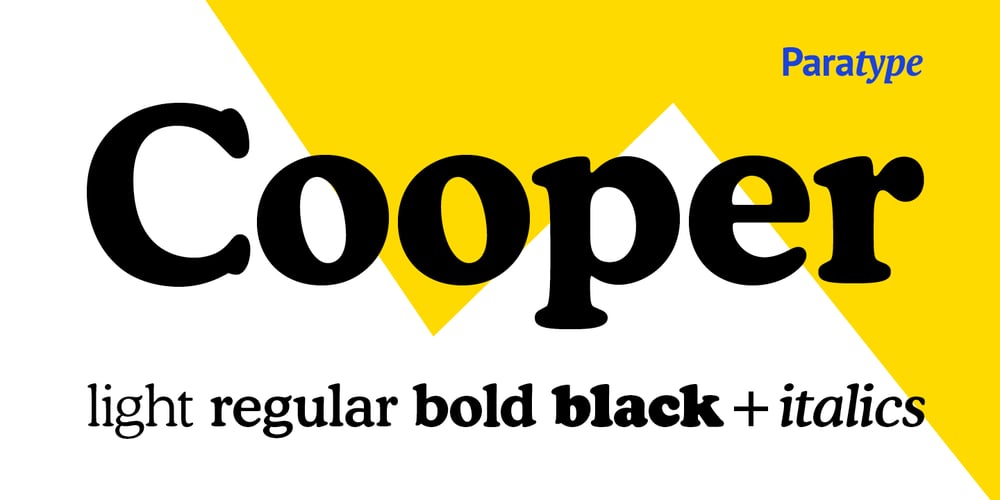
Cooper BT Font Family was designed by Manvel Shmavonyan and published by ParaType. Cooper BT contains 8 styles and family package options. Bitstream Cooper was designed at Bitstream in 1986 by means of adding light, medium, and bold styles, with the corresponding italics, to the existing black ones. Based on Cooper Black, 1919, by Oswald Bruce Cooper, which was firstly released as a hand composition font in 1922 by Barnhart Brothers & Spindler of Chicago and later spread by ATF. Cooper Black is an extra bold face based on Cooper Old Style. Bitstream Cooper is an old style face with rounded serifs and tilted back ovals. For use both in text (normal weights) and in advertising and display typography (heavy weights). Cyrillic version was developed for Paratype in 2000 by Manvel Shmavonyan and based on TM Oswald face of TypeMarket, 1996, by Victoria Grigorenko.